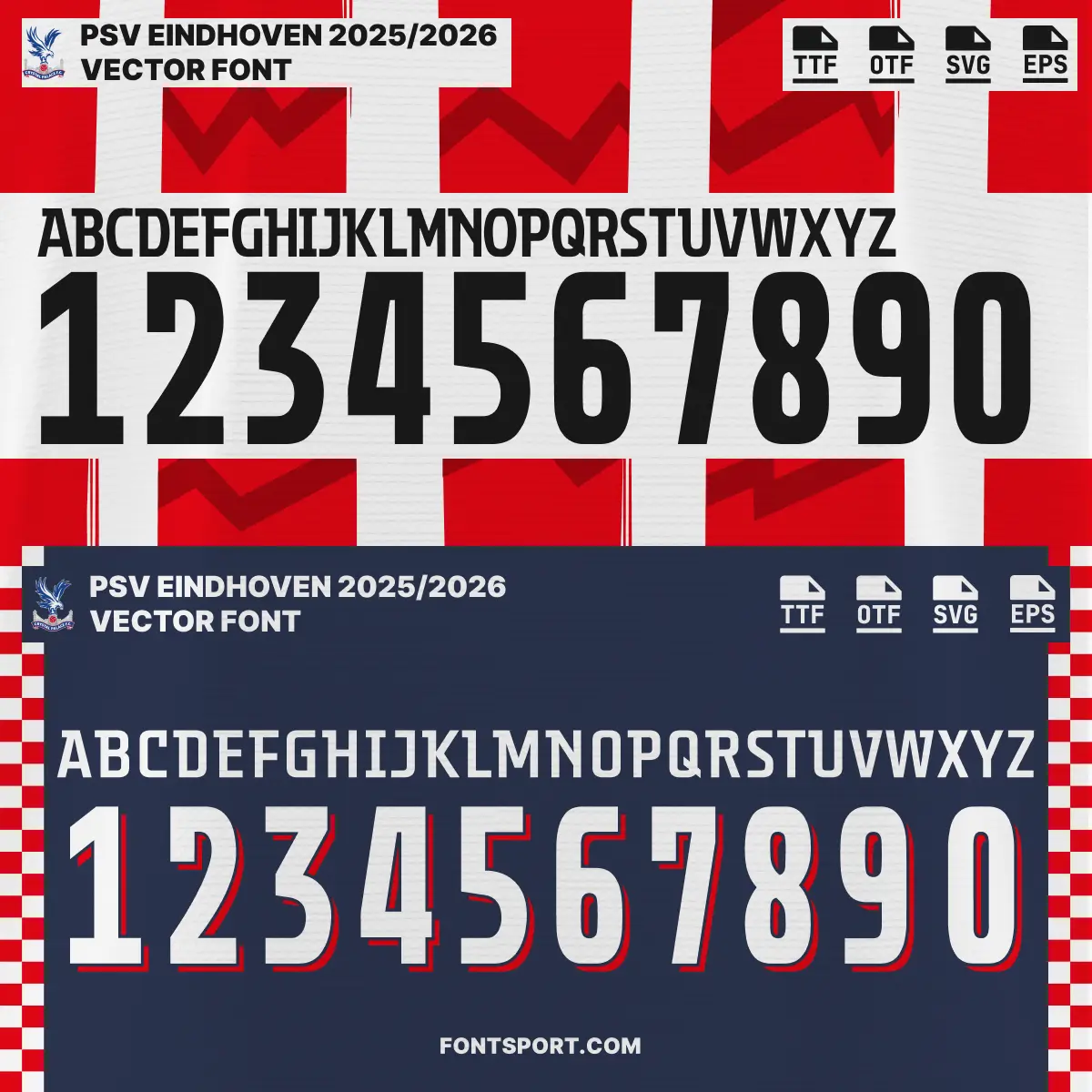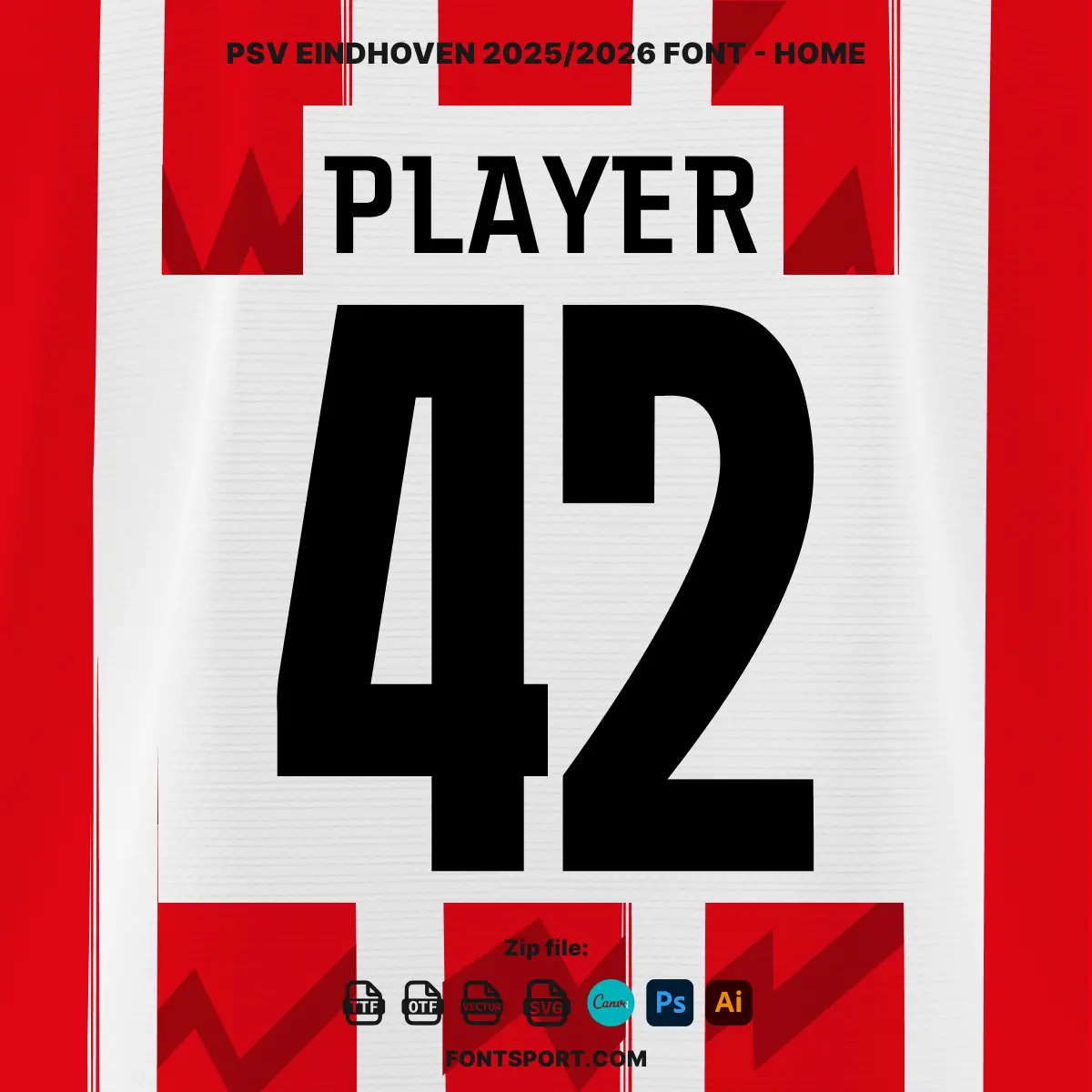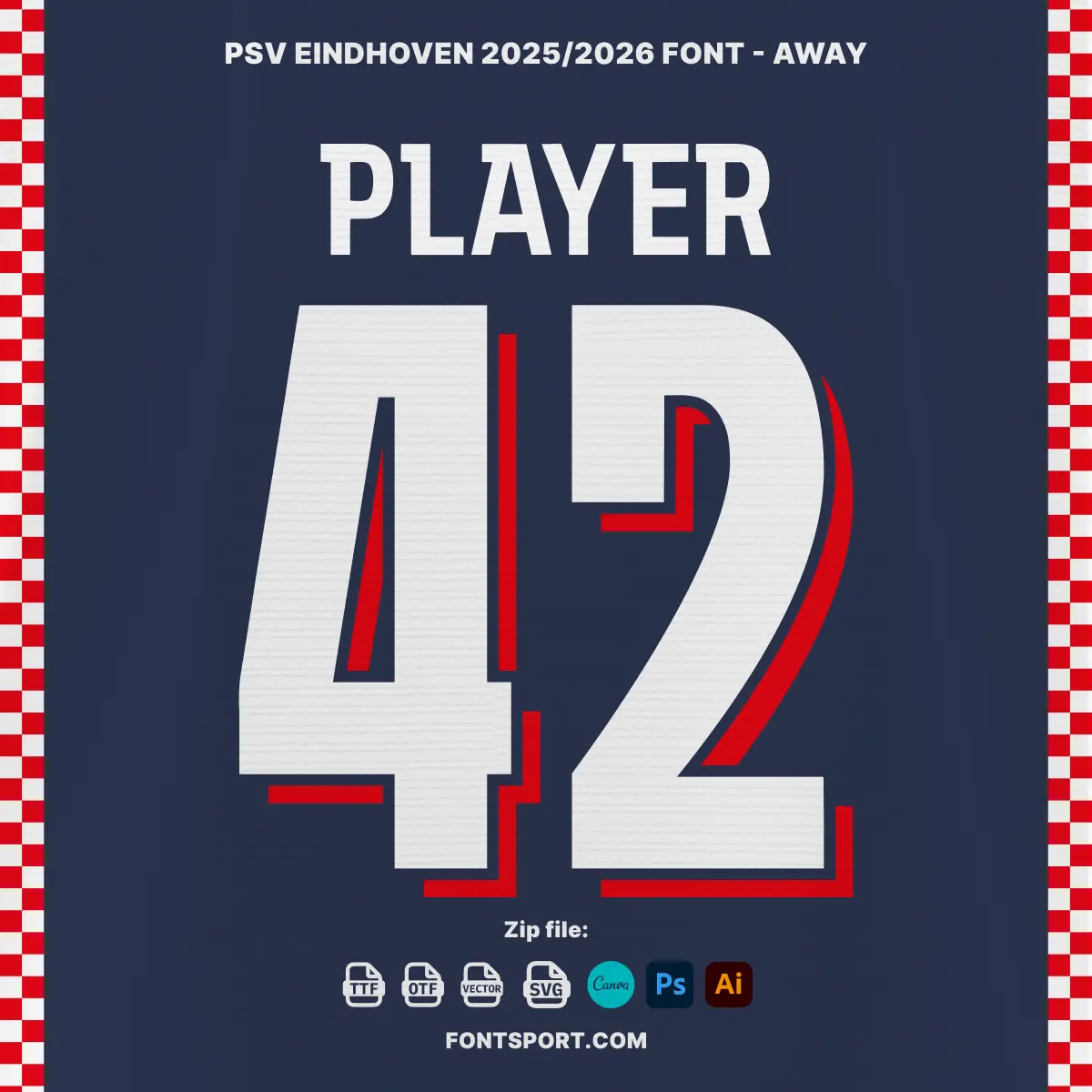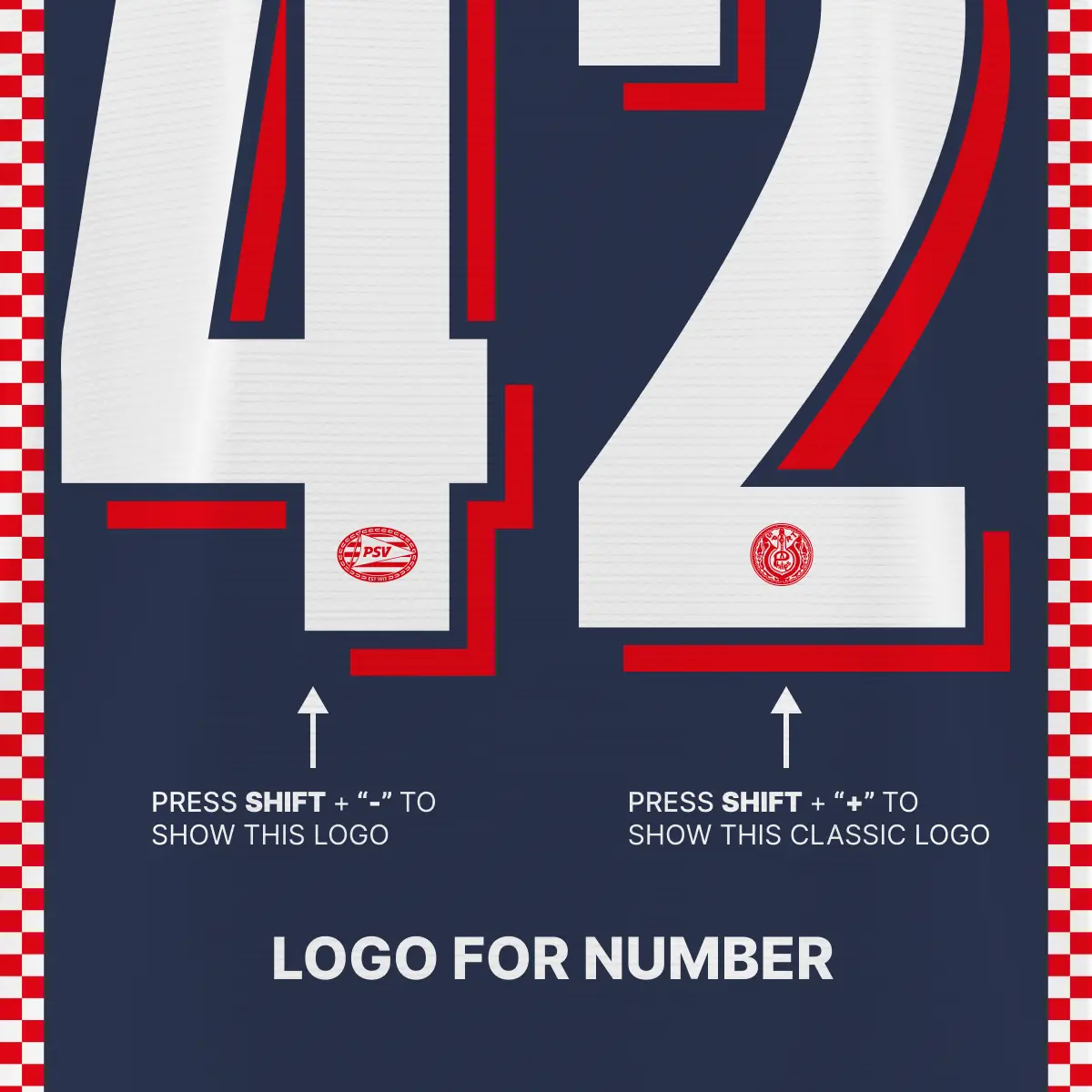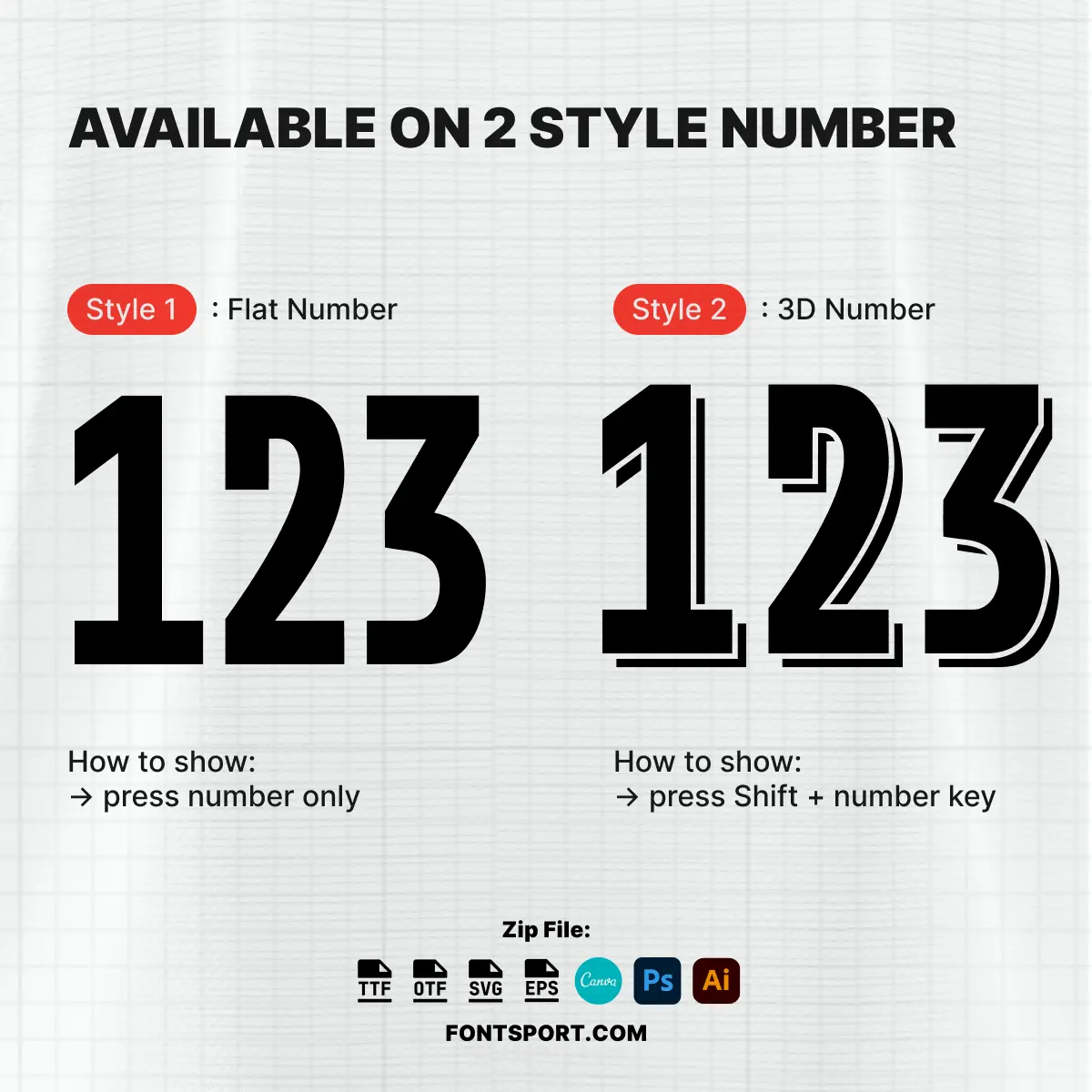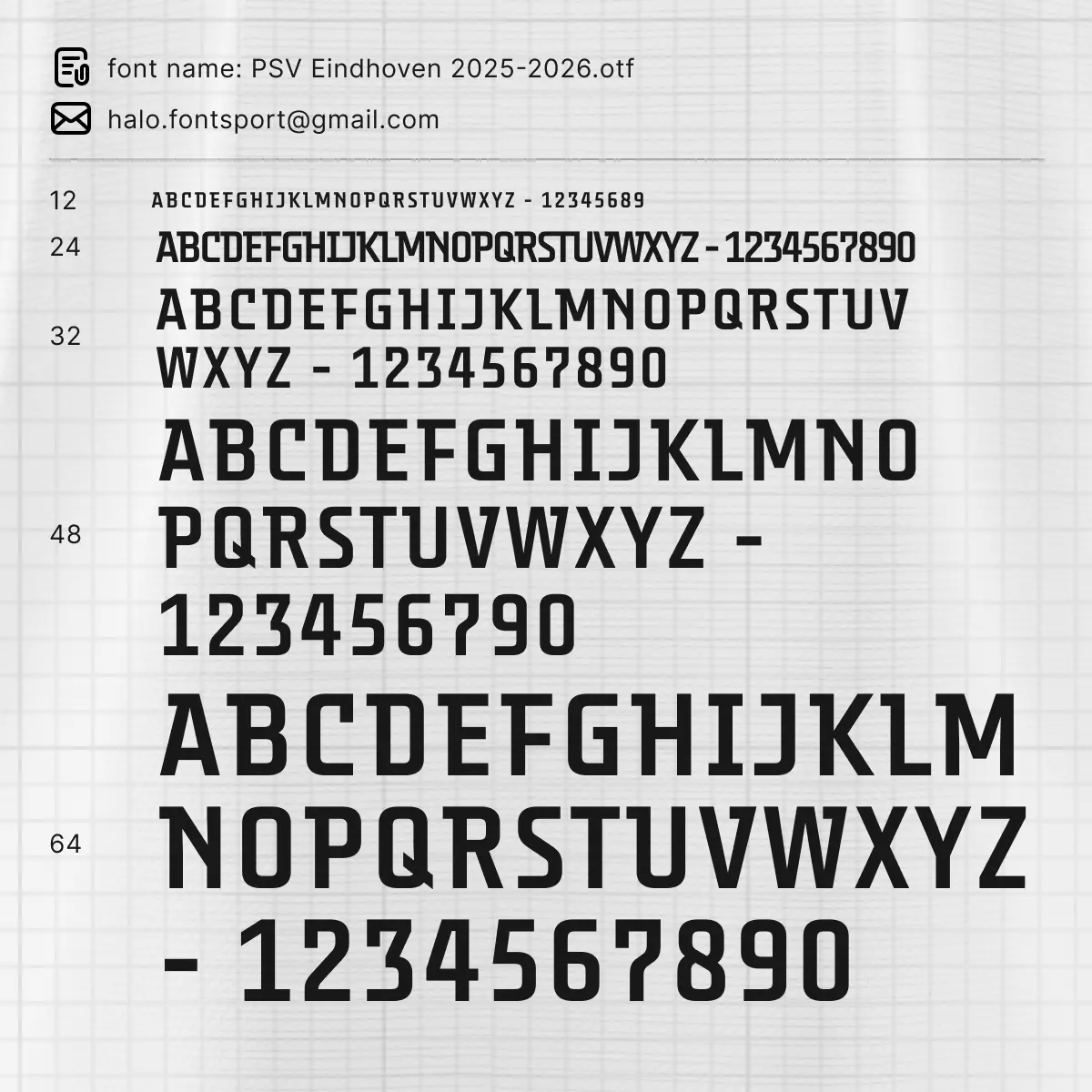
PSV Eindhoven 2025/2026 Font
The PSV Eindhoven Font Kit 2025/2026 is a bold and contemporary typeface inspired by the historic Dutch football club’s official 2025/2026 Eredivisie design. Whether you’re a graphic designer, football fan, or entrepreneur, this kit gives you the creative tools to channel the spirit of PSV Eindhoven into your visual projects.
This font kit is ideal for both digital and print use—including jersey number designs, event posters, wrapping paper, fan-made merchandise, and much more. The font carries a clean, athletic character with a unique Dutch identity that makes it stand out in any layout.
From stadium branding to personal artwork, this kit empowers you to create designs that are visually aligned with PSV Eindhoven’s modern and traditional styles—featuring both the classic crest and updated logo glyphs.
✅ Full uppercase A–Z and numbers 0–9
Two built-in PSV Eindhoven logos – including the official and classic versions
Multilingual support with accented Latin characters
This font kit is flexible and beginner-friendly while still offering the quality and detail needed by professionals. Each number is built with clean geometry, optimized for readability and performance across screen and print formats.
You won’t need extra files to place the PSV logos. Just type the special key combination, and the symbols appear immediately—integrated seamlessly into the design.
🔴 Inspired by the official PSV Eindhoven Font Kit 2025/2026 used in Eredivisie and European competition matches.